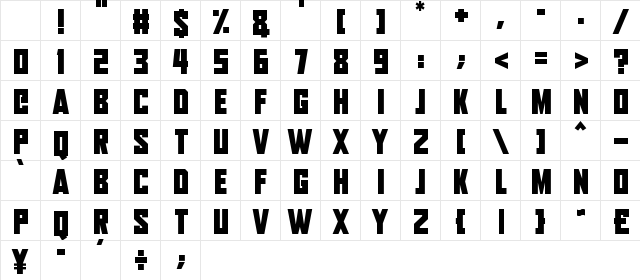
Aliens Among Us Regular
Aliens Among Us Family
Design Context for Aliens Among Us
Aliens Among Us is a composed and adaptable typeface that performs quietly and consistently across a wide range of design contexts.